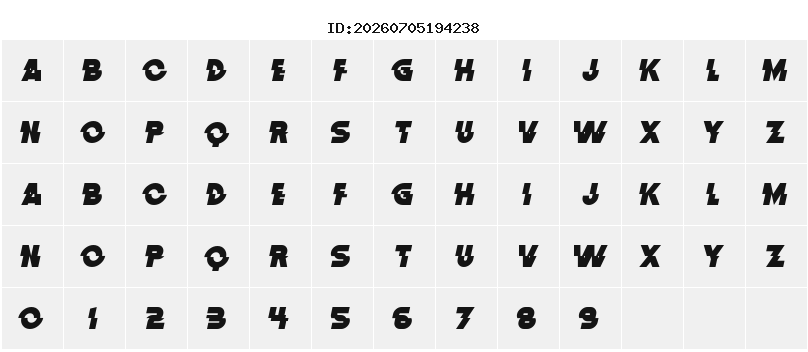
Distortion Dos Analogue Preview
• Font Name: Distortion Dos Analogue
• Font ID: Distortion Dos Analogue:Version 1.00
• Full Font Name: Distortion Dos Analogue
• Version: Version 1.00 March 2, 2016, initial release
• PostScript Name: DistortionDosAnalogue
• Designer: AM
About Distortion Dos Analogue.otf
Distortion Dos Analogue.otf is a modern, elegant sans-serif font designed for ultimate readability and visual harmony. Perfect for branding, headlines, web design, and print materials.